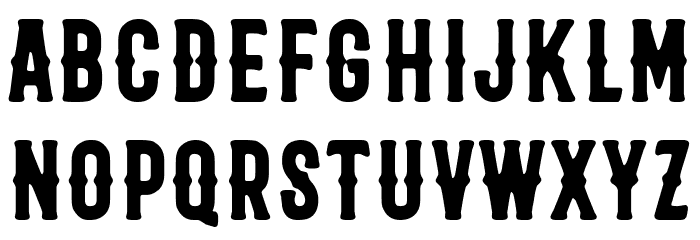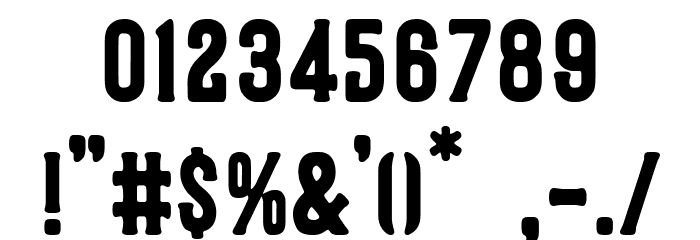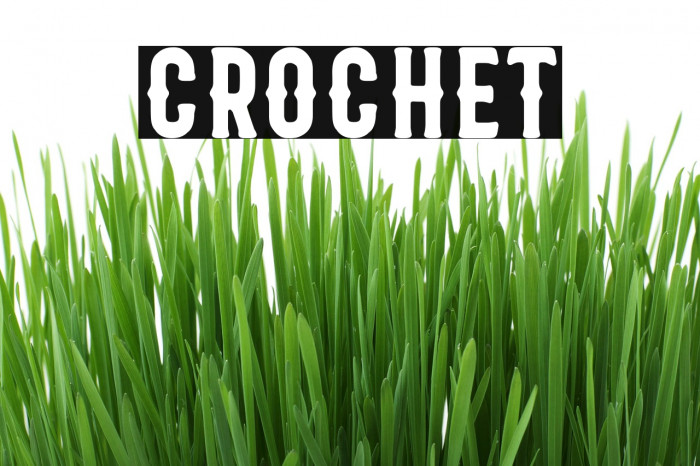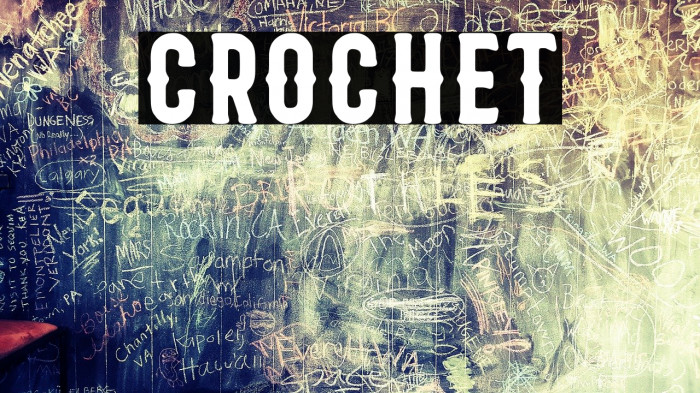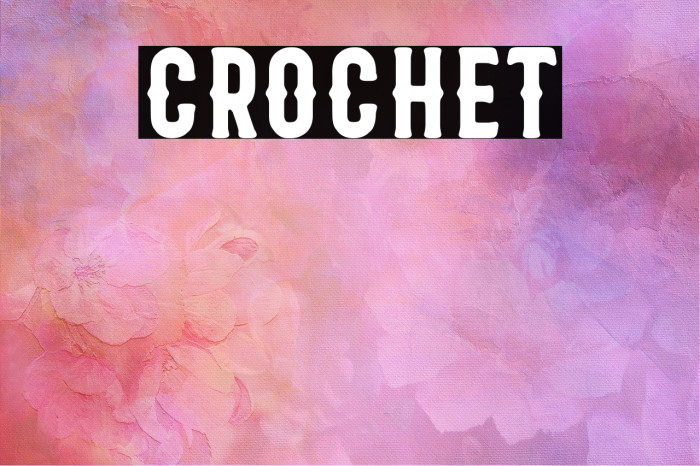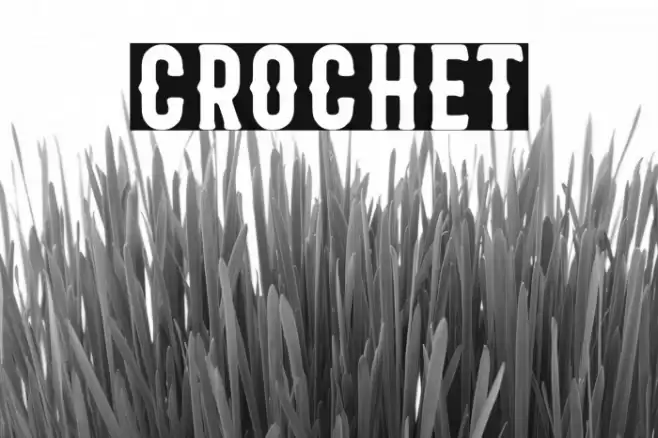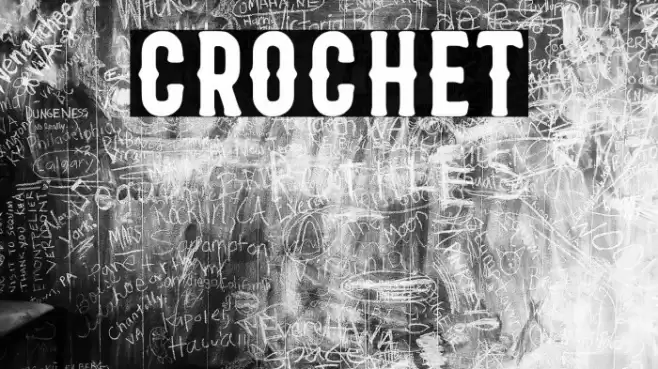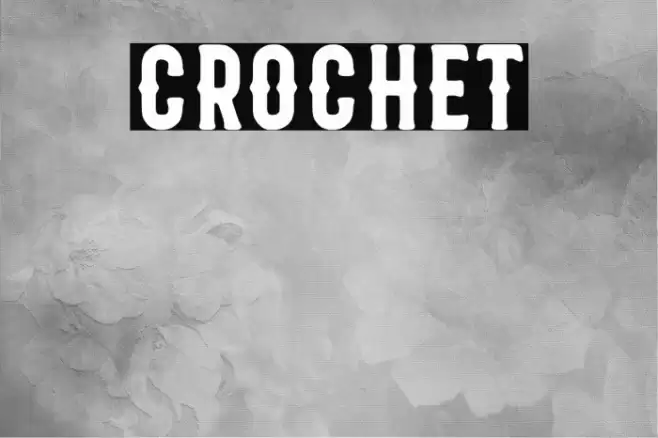
Crochet Font
This font features bold, blocky characters with a strong presence, making it ideal for attention-grabbing designs. The letters are uniformly thick, with minimal variation in stroke width, giving it a robust and sturdy appearance. The characters are slightly condensed, enhancing their compact and impactful look. The font includes a full set of uppercase and lowercase letters, numerals, and a variety of special characters, making it versatile for different design needs. Its boldness and clarity make it suitable for headlines, posters, and branding materials where a strong visual impact is desired.
A bold, blocky font with uniform stroke width, ideal for impactful designs.
- Proposed Projects: Perfect for posters, headlines, branding, and any design requiring a strong visual impact.